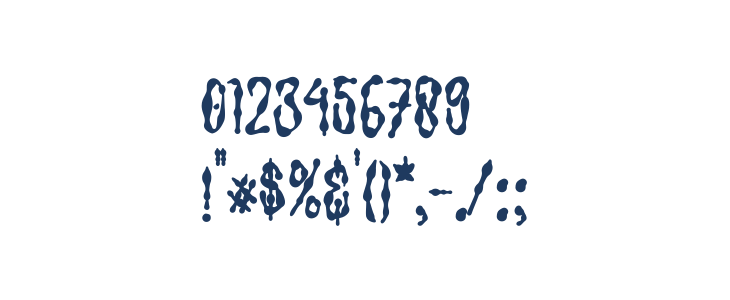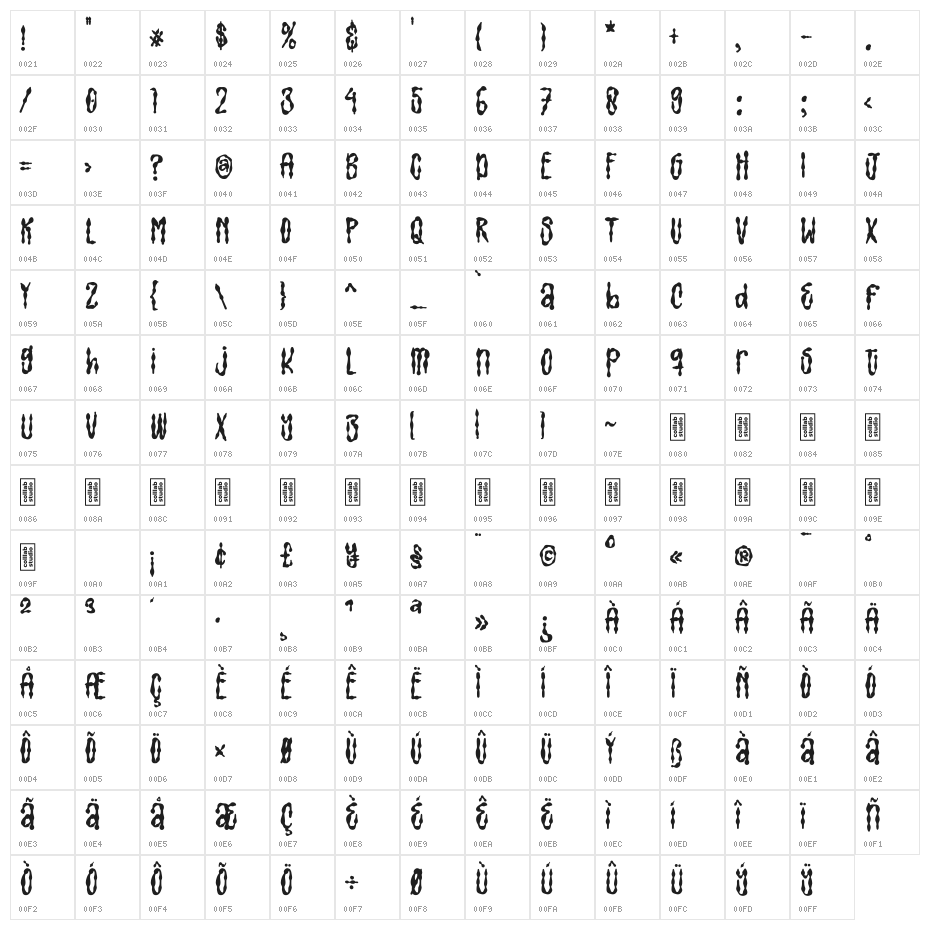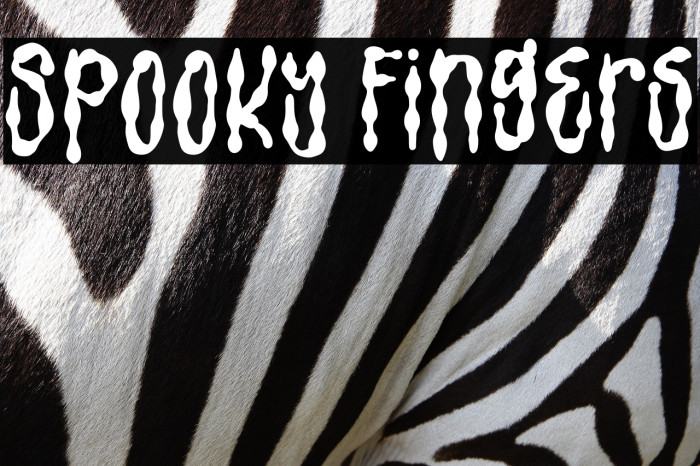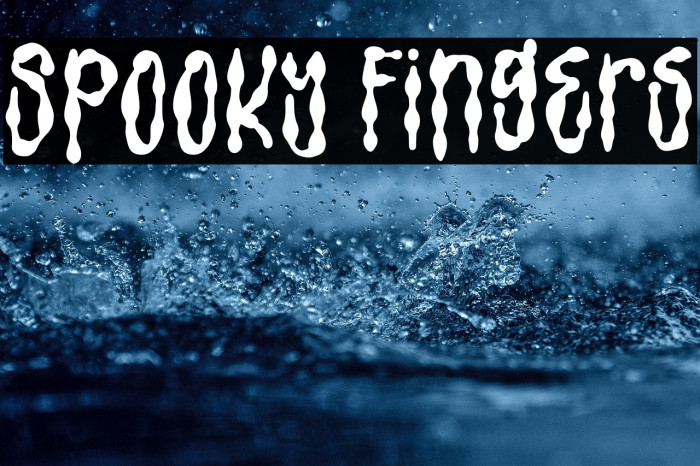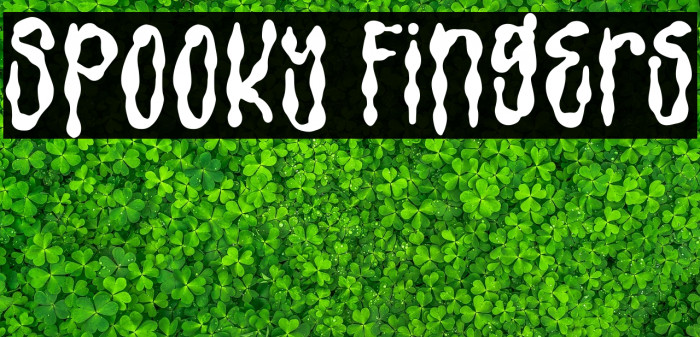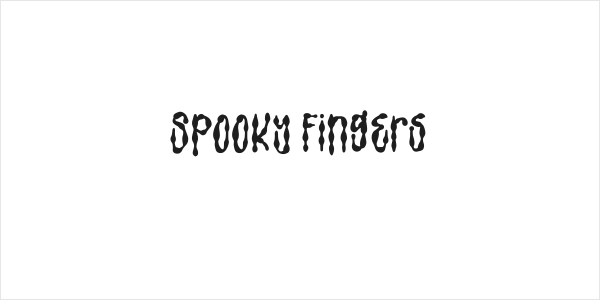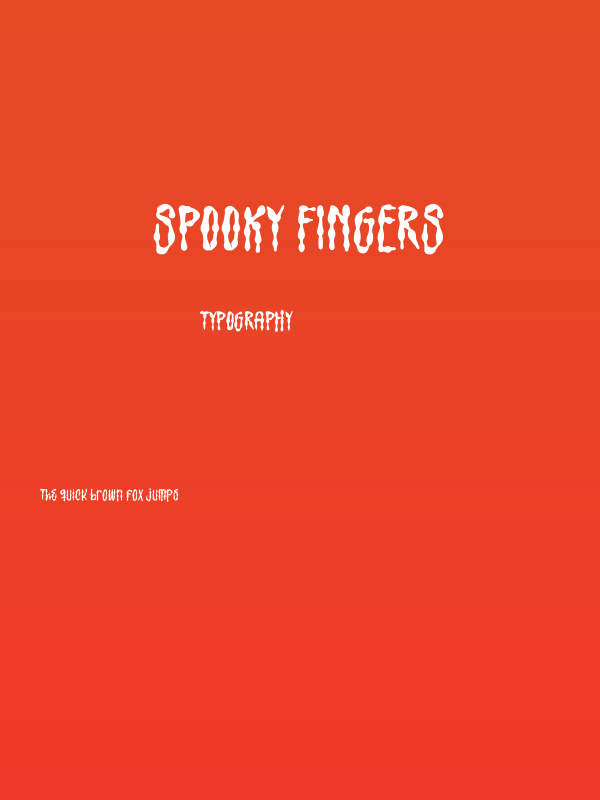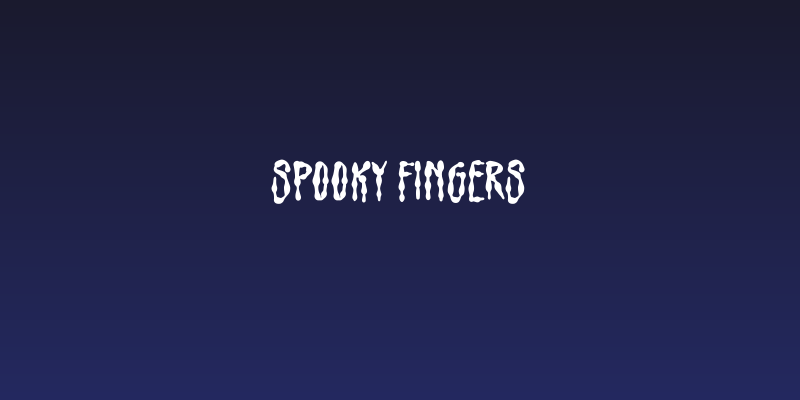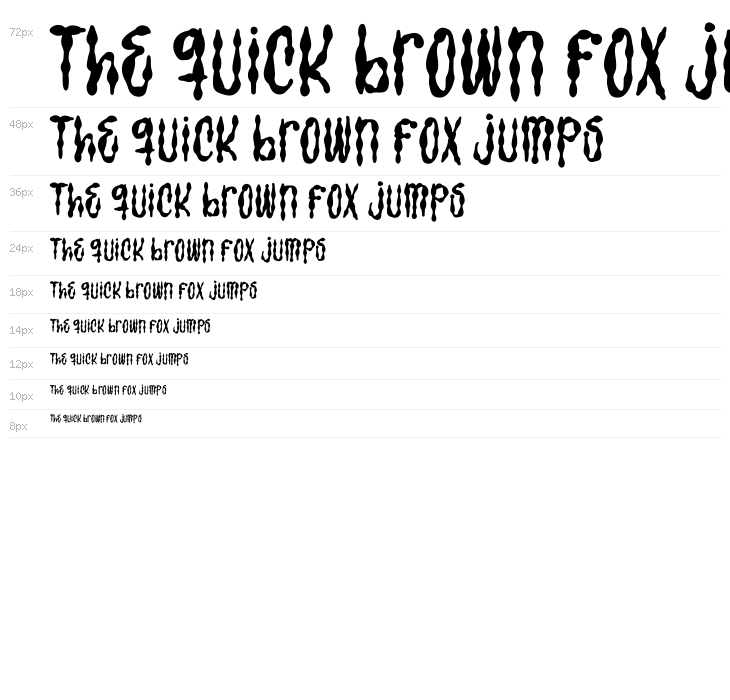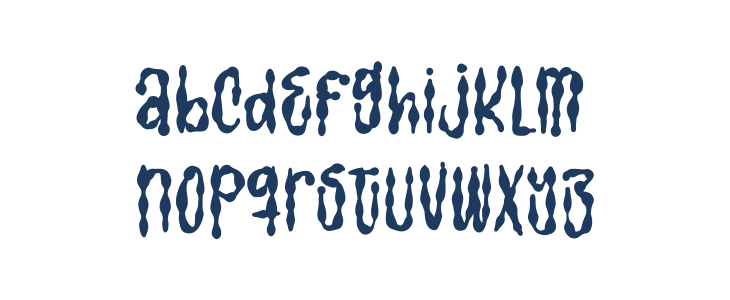
Spooky Fingers Font
Spooky Fingers Description
This font exudes a spooky and eerie vibe, reminiscent of dripping or melting wax. The characters have an irregular and organic shape, with uneven edges that give them a ghostly appearance. The uppercase and lowercase letters maintain a consistent style, with each character appearing as if it is slowly melting or dripping. The numbers and special characters follow the same theme, enhancing the overall haunted aesthetic. This font is perfect for Halloween-themed projects or any design that requires a touch of the macabre.
| Proposed Projects | Halloween invitations, horror movie posters, haunted house flyers, spooky event branding. |